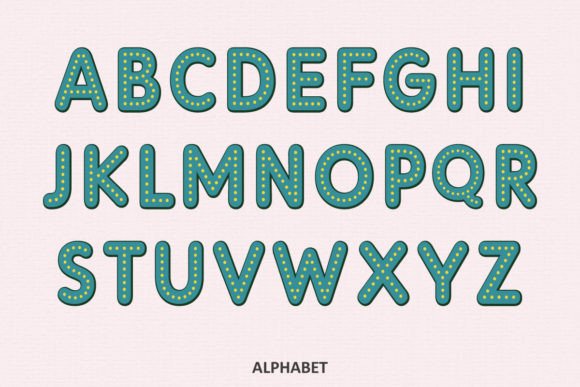
Introducing Easter Dotted Font: The Perfect Addition to Your Easter Projects
Are you looking for a unique and festive font to add to your Easter-themed projects? Look no further than the Easter Dotted Font! This charming green font with gold dots is perfect for designers and crafters who want to create eye-catching and cohesive designs for the Easter season.
A Versatile Font for Various Projects
The Easter Dotted Font is incredibly versatile and can be used for a wide range of projects, including:
- Banners: Create festive banners for Easter parties, decorations, or events.
- Content: Add a touch of Easter charm to your blog posts, social media content, or website headers.
- Mugs: Design adorable Easter-themed mugs for gifts or personal use.
- Cards: Create beautiful Easter cards for friends and family.
- Shirts: Design Easter-themed t-shirts, hoodies, or tote bags.
- Stationery: Add a festive touch to your Easter stationery, including notebooks, stickers, or washi tape.
- Social Media Posts: Make your Easter social media posts stand out with this delightful font.
Why You’ll Love Easter Dotted Font
So, why should you choose the Easter Dotted Font for your projects? Here are just a few reasons:
- Unique and Festive: This font is specifically designed for Easter-themed projects, making it a unique and festive addition to your designs.
- High-Quality: The Easter Dotted Font is a high-quality font that is designed to produce crisp and clear results, even at small sizes.
- Versatile: The Easter Dotted Font can be used for a wide range of projects, from digital designs to physical products.
Tips for Using Easter Dotted Font
Here are a few tips for using the Easter Dotted Font in your projects:
- Experiment with Colors: While the green and gold colors of the font are perfect for Easter, don’t be afraid to experiment with other colors to create unique and personalized designs.
- Pair with Other Fonts: The Easter Dotted Font pairs well with other fonts, so feel free to experiment with different combinations to create visually appealing designs.
- Use for Headings and Titles: The Easter Dotted Font is perfect for headings and titles, but don’t be afraid to use it for body text or other design elements as well.